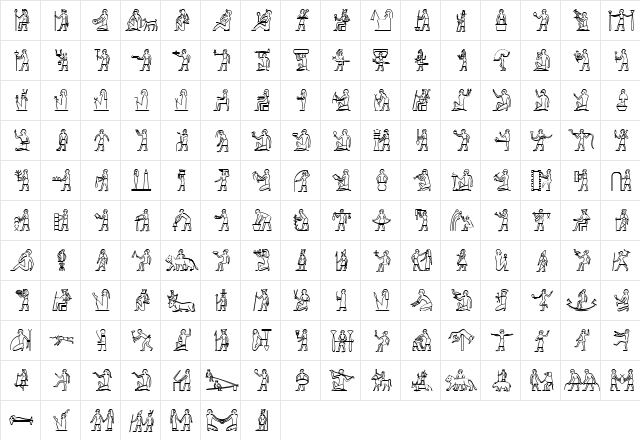
GlyphExtLibC Medium
Design Context for GlyphExtLibC Typeface
GlyphExtLibC is a composed and adaptable typeface that performs quietly and consistently across a wide range of design contexts.